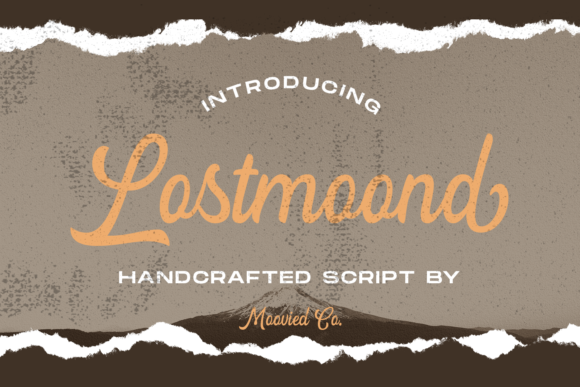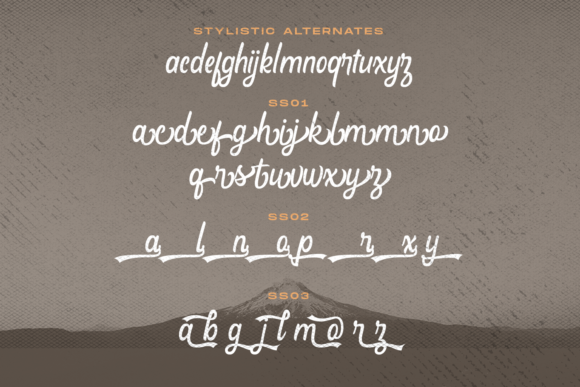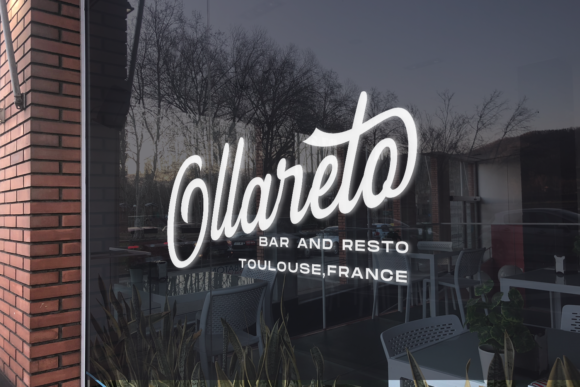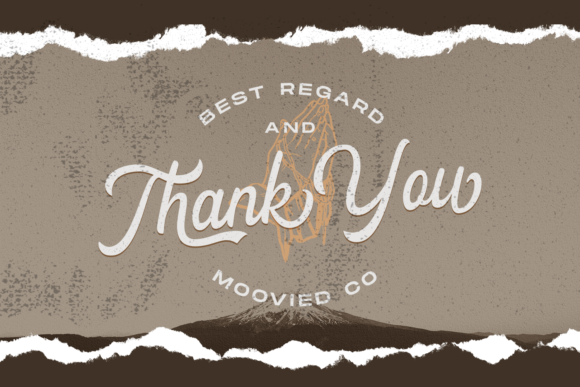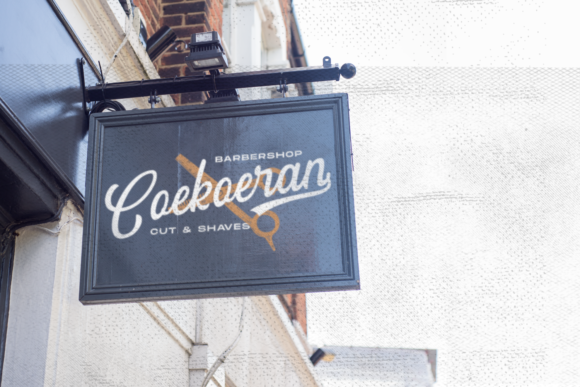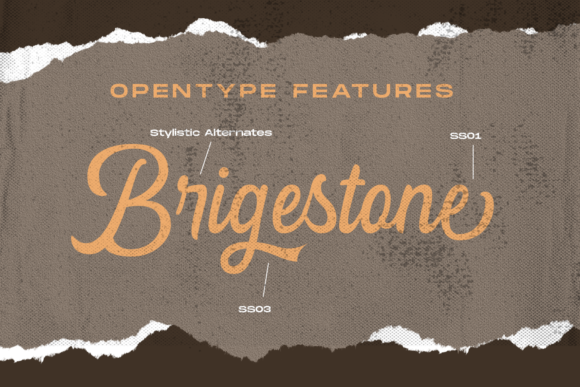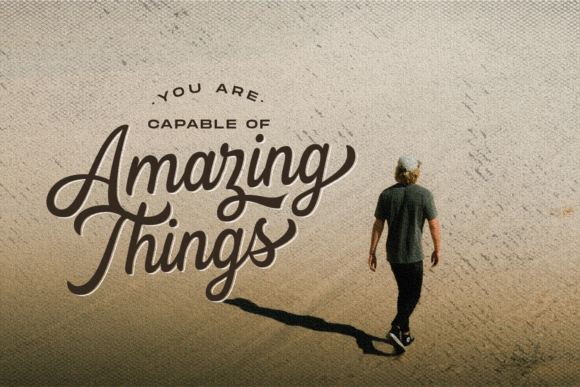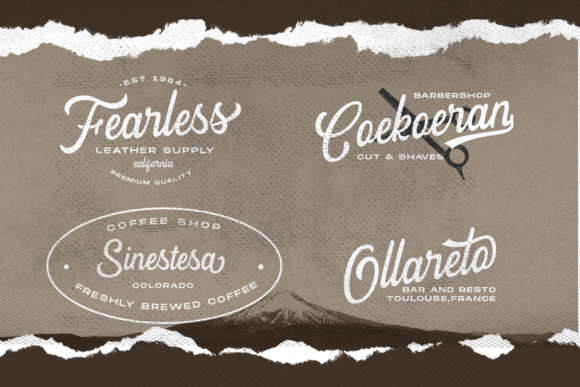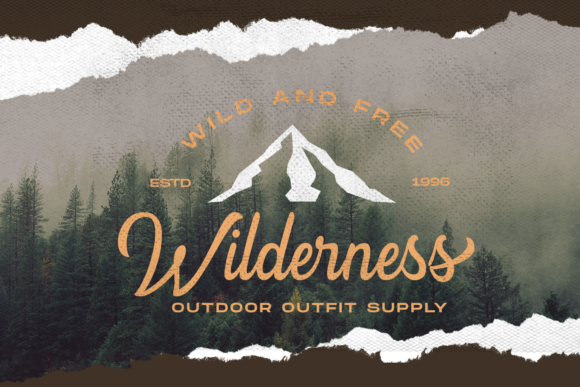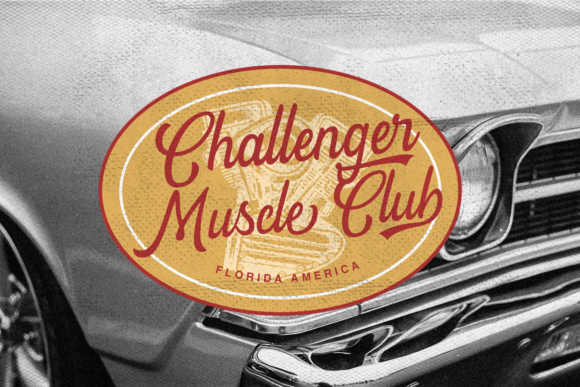
Lostmoond Font
About Lostmoond Font
Lostmoond is a modern signature font. Fall in love with its authentic feel and use it to create gorgeous wedding invitations, beautiful stationary art, eye-catching social media posts, and cute greeting cards.